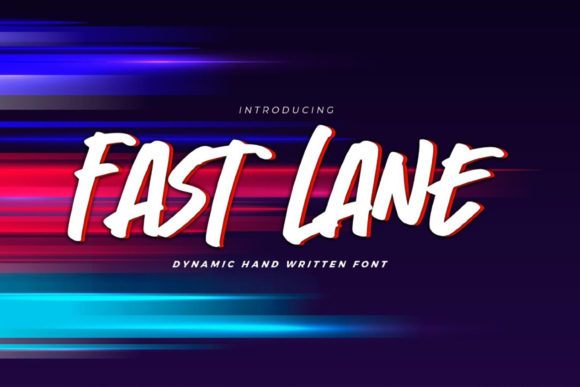
Journey into the realm of cinematic artistry with Fast Lane Font, the ultimate script font that ignites the spirit of motion and drama. Created by the visionary Gassstype Studio, Fast Lane is a testament to the power of penmanship, meticulously crafted by hand with love and passion. Its natural style and dramatic movement capture the essence of a screenwriter's imagination, transforming words into vibrant, flowing masterpieces.
Immerse yourself in the world of Fast Lane, where each character dances across the page with grace and fluidity. Witness the beauty of its dynamic strokes, the subtle variations in thickness that add depth and texture, and the enchanting ligatures that create an unparalleled sense of harmony. Whether you're crafting logos that demand attention or designing invitations that exude elegance, Fast Lane is your perfect companion.
Unleash your creativity and let Fast Lane guide you through your next creative endeavor. Picture your designs adorned with this cinematic script, captivating audiences with its undeniable charm. Imagine logos that leap off the page, posters that come alive with movement, and product packaging that commands attention on any shelf. Fast Lane is not just a font; it's an experience, a journey through the world of visual storytelling.
With Fast Lane, you'll discover a world of possibilities. Its versatility extends from the grandest movie credits to the most intimate handwritten notes. Create letterheads that exude professionalism, posters that ignite imaginations, and labels that whisper stories of elegance. The possibilities are endless, limited only by your creativity.
So embark on this adventure with Fast Lane, the font that embodies the essence of cinema and creativity. Let its dynamic strokes and captivating movement add a touch of magic to your designs, transforming them into works of art that resonate with audiences. Download Fast Lane today and experience the thrill of bringing your creative vision to life.